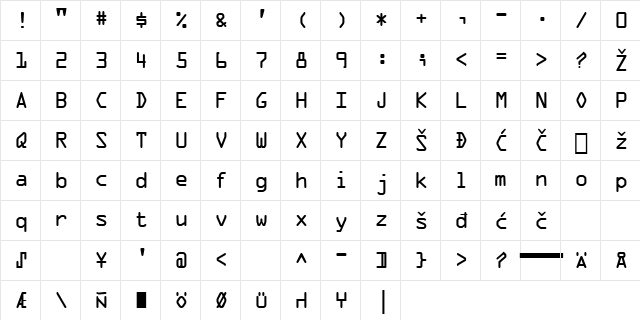
OCR-A Regular
OCR-A Family
Design Context for OCR-A
OCR-A is a composed and adaptable typeface that performs quietly and consistently across a wide range of design contexts.
Pro Tip: Use OCR-A in both headline and body roles to test its range before committing to a single application.